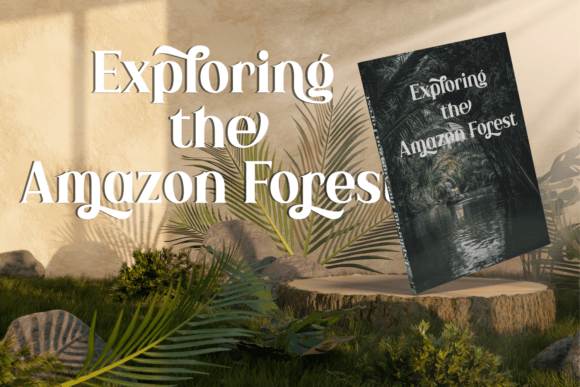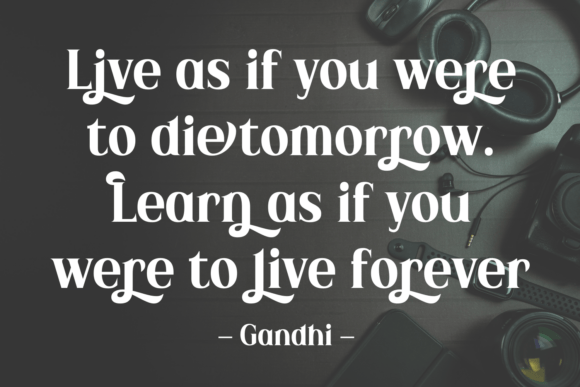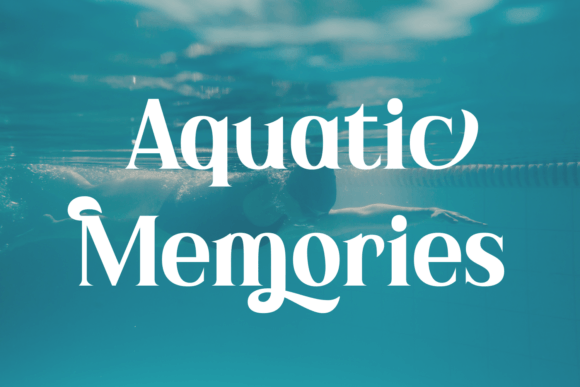
Chasing the Dream Font
Immerse yourself in the sophisticated elegance of Serif style with a modern twist. From classic weddings to modern photography, this font integrates seamlessly, adding a unique and authentic touch to your creations. Whether you’re looking for a branding revamp or a swash of luxury, this font family, available in regular and italic styles, can elevate your design expression.Drawing inspiration from groovy 60s and chic 70s, this font flawlessly combines retro charm with contemporary sleekness, making it a versatile asset in your font repertoire. Its smooth visual texturing and professional appeal lend a minimal yet classy sophistication that can make your social media content and university projects stand out.Beyond style, this modern font comes with a bold variant for impactful statements. More than a font, it’s a multilingual marvel, breaking language barriers and expanding the realms of communication. Accent your creative journey with the elegant modern font – the perfect blend of nostalgic and modern, smooth and bold, minimal and classy.